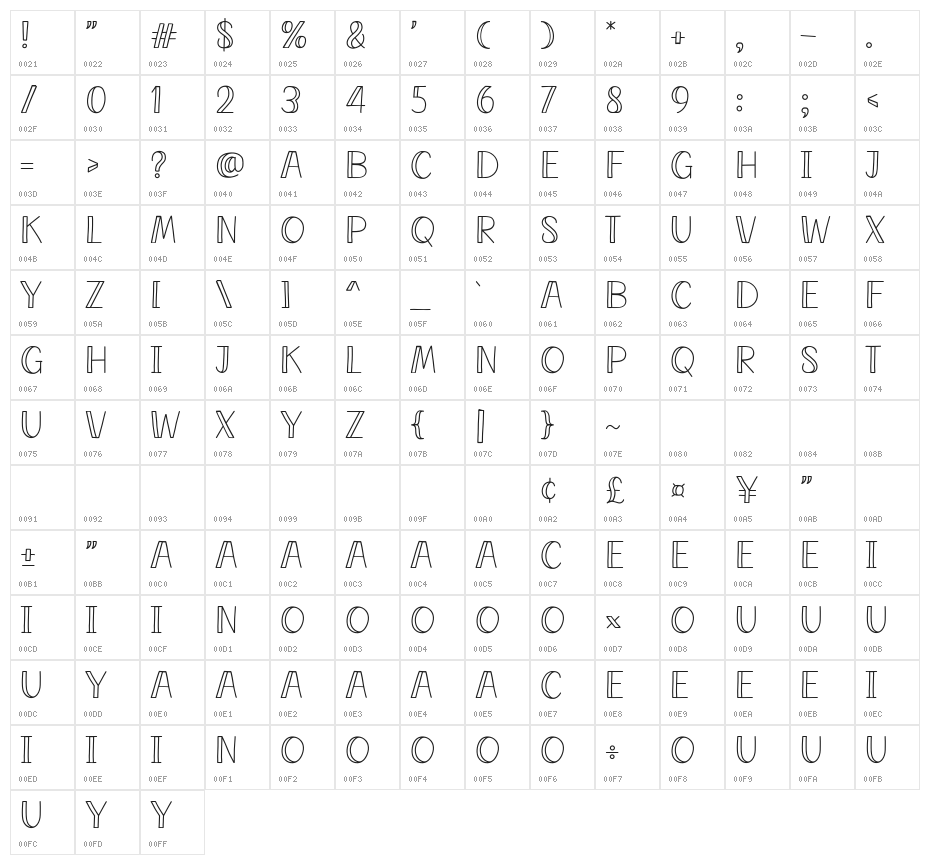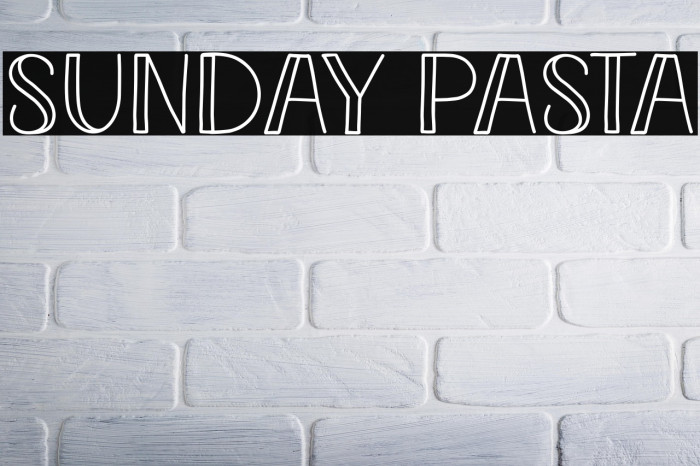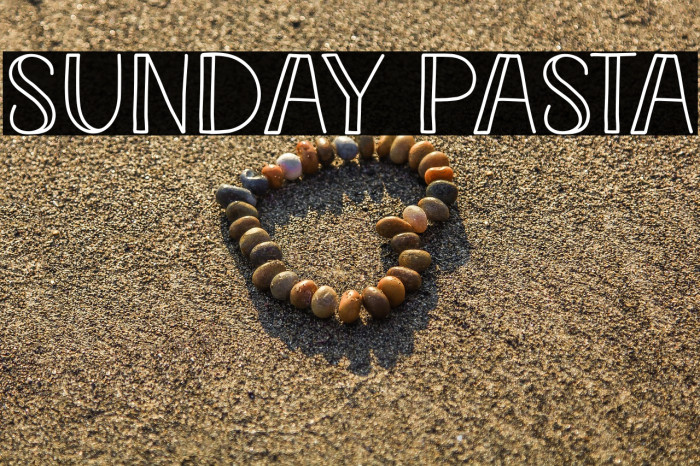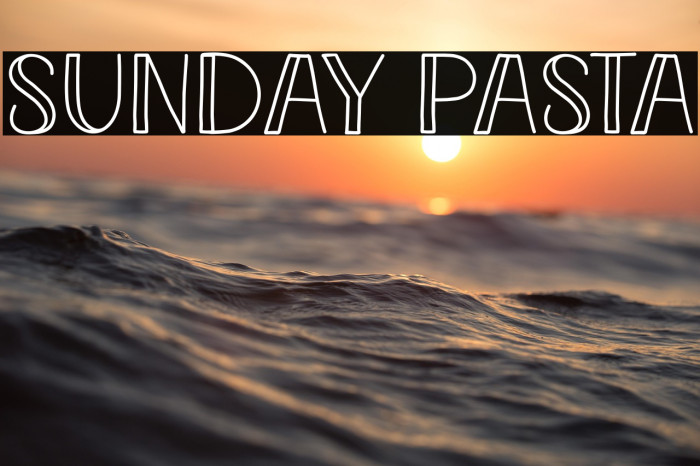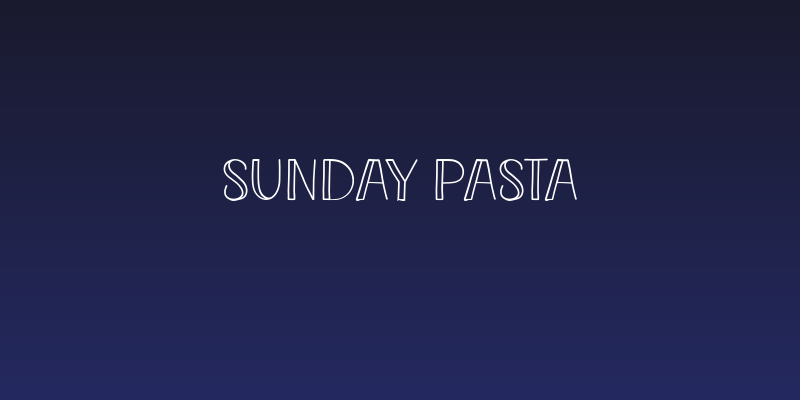
Sunday Pasta Font
Sunday Pasta Description
This font features a playful and whimsical design with a hand-drawn aesthetic. The characters are outlined with a consistent stroke width, giving them a light and airy feel. The uppercase and lowercase letters maintain a uniform style, with slight variations that add to the font's charm. The numerals and special characters follow the same design principles, ensuring a cohesive look across all elements. The font's unique style makes it suitable for creative and informal projects, where a touch of personality is desired.